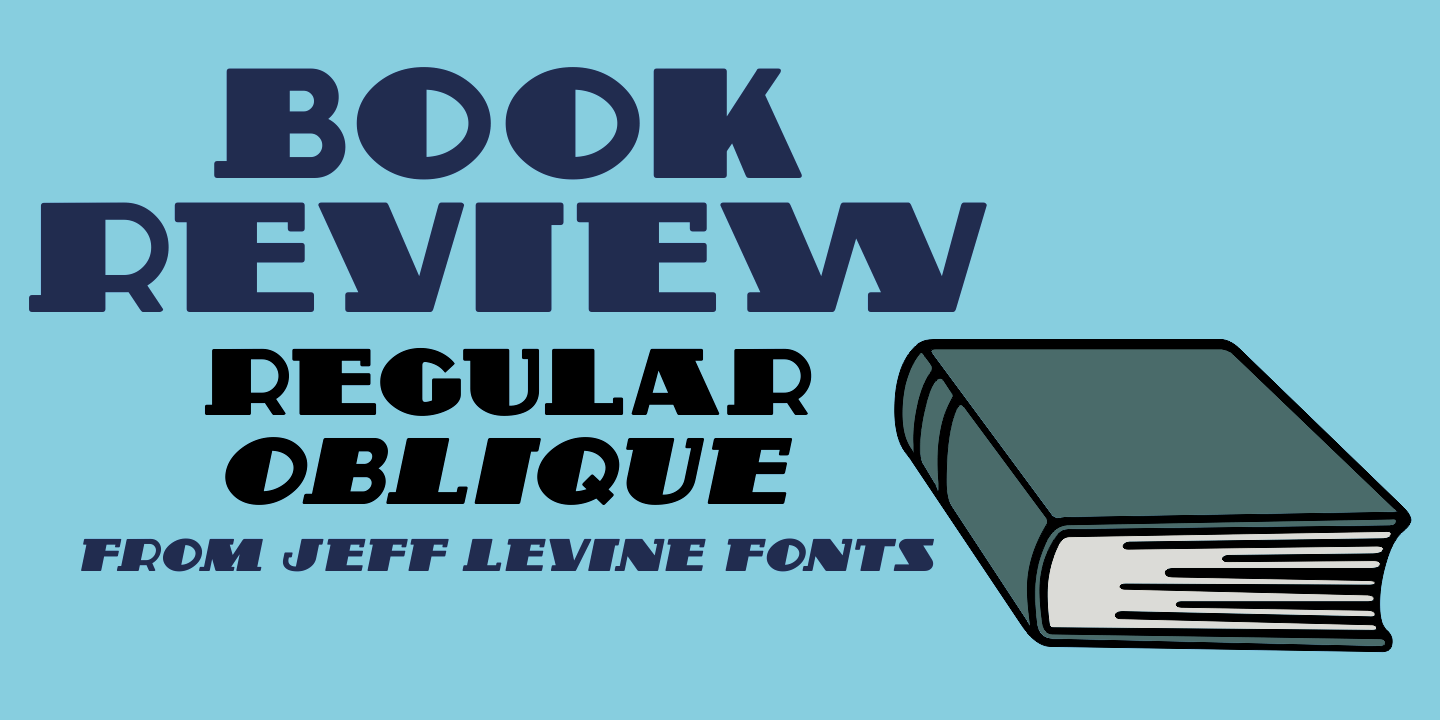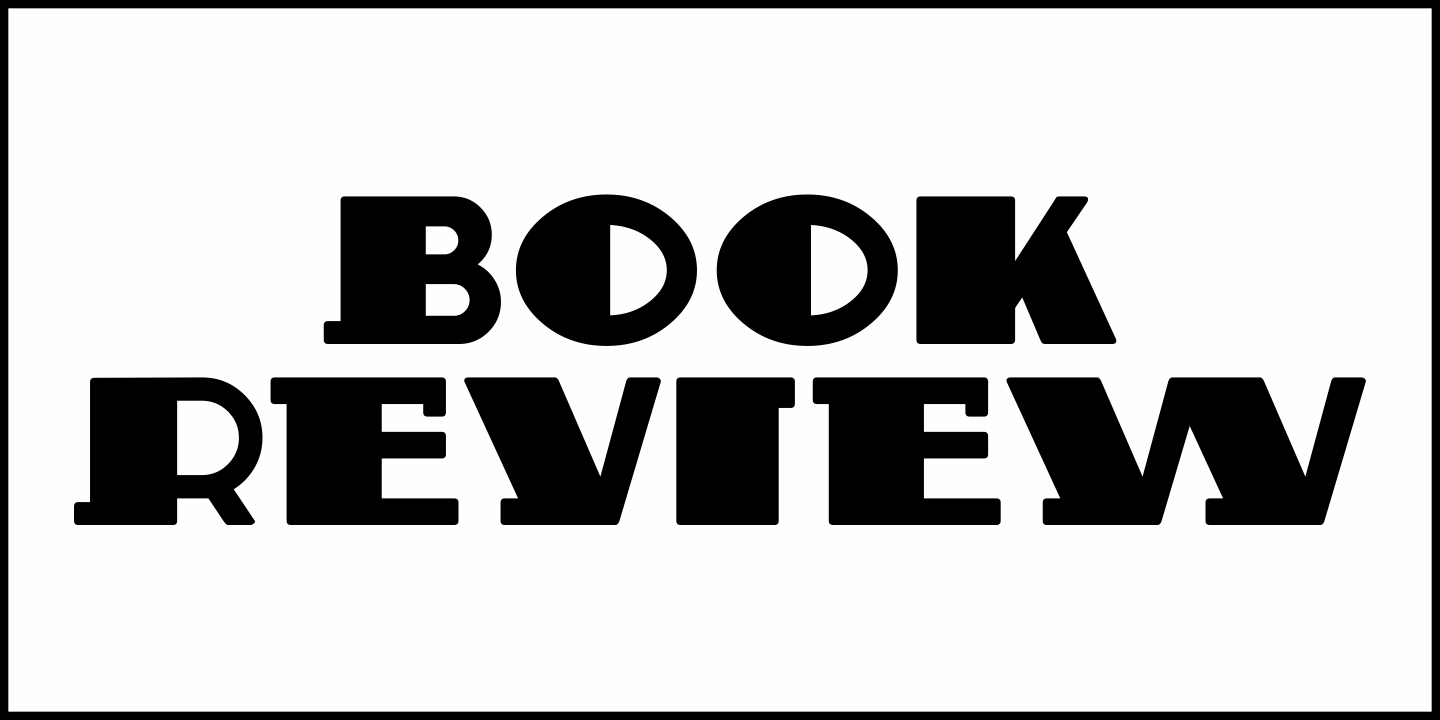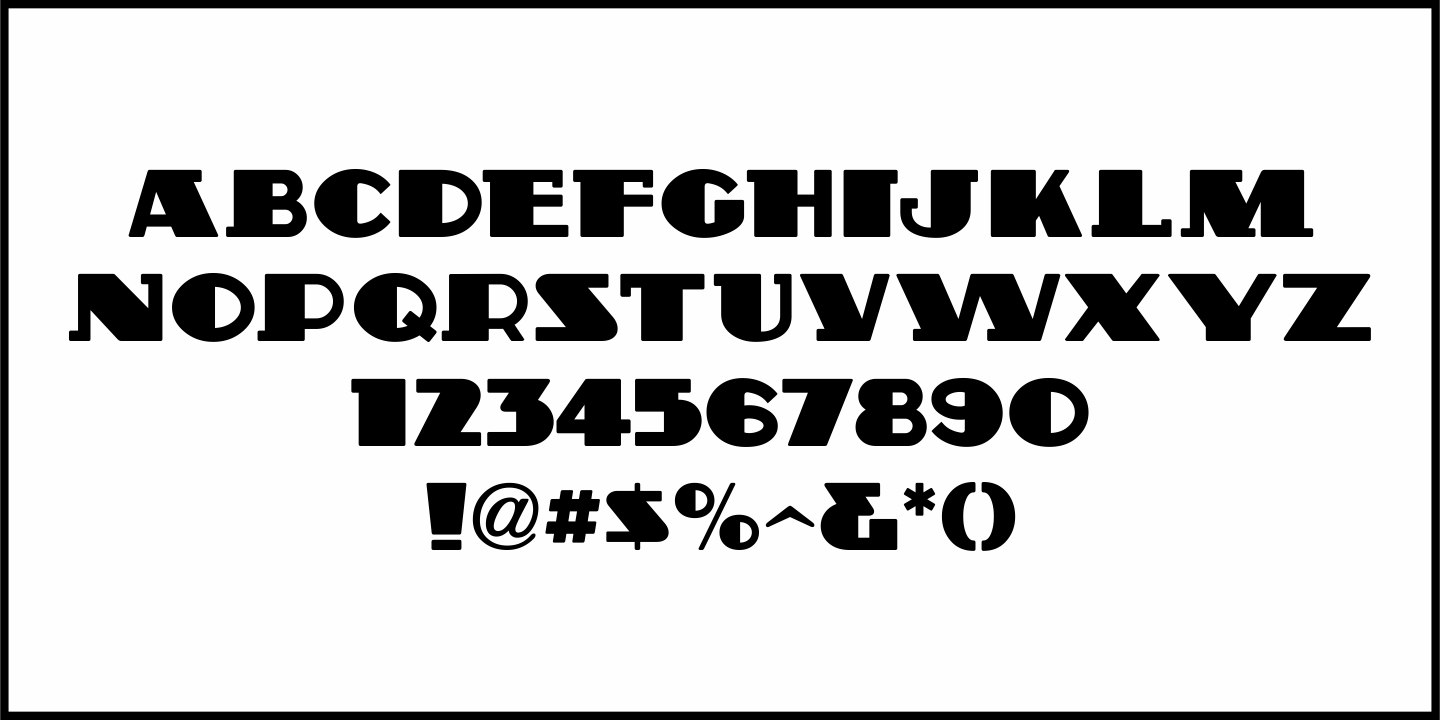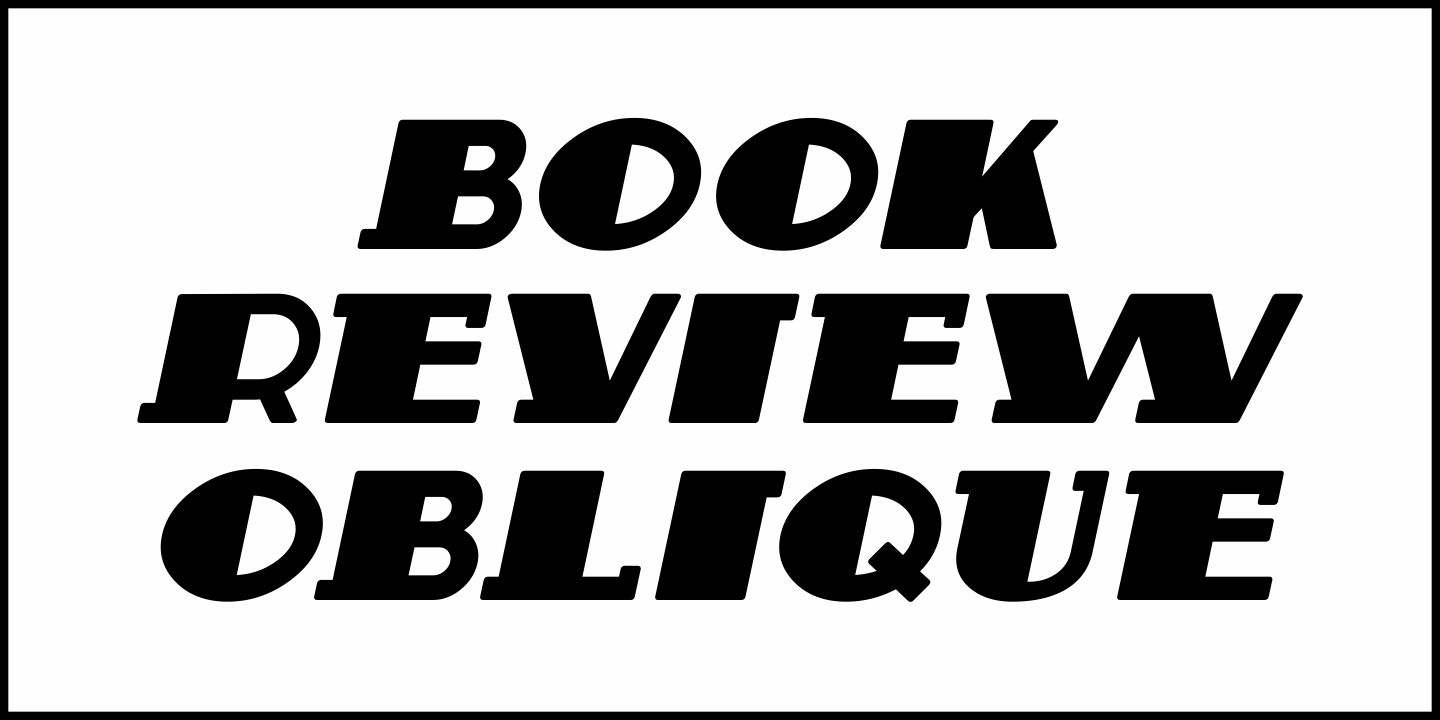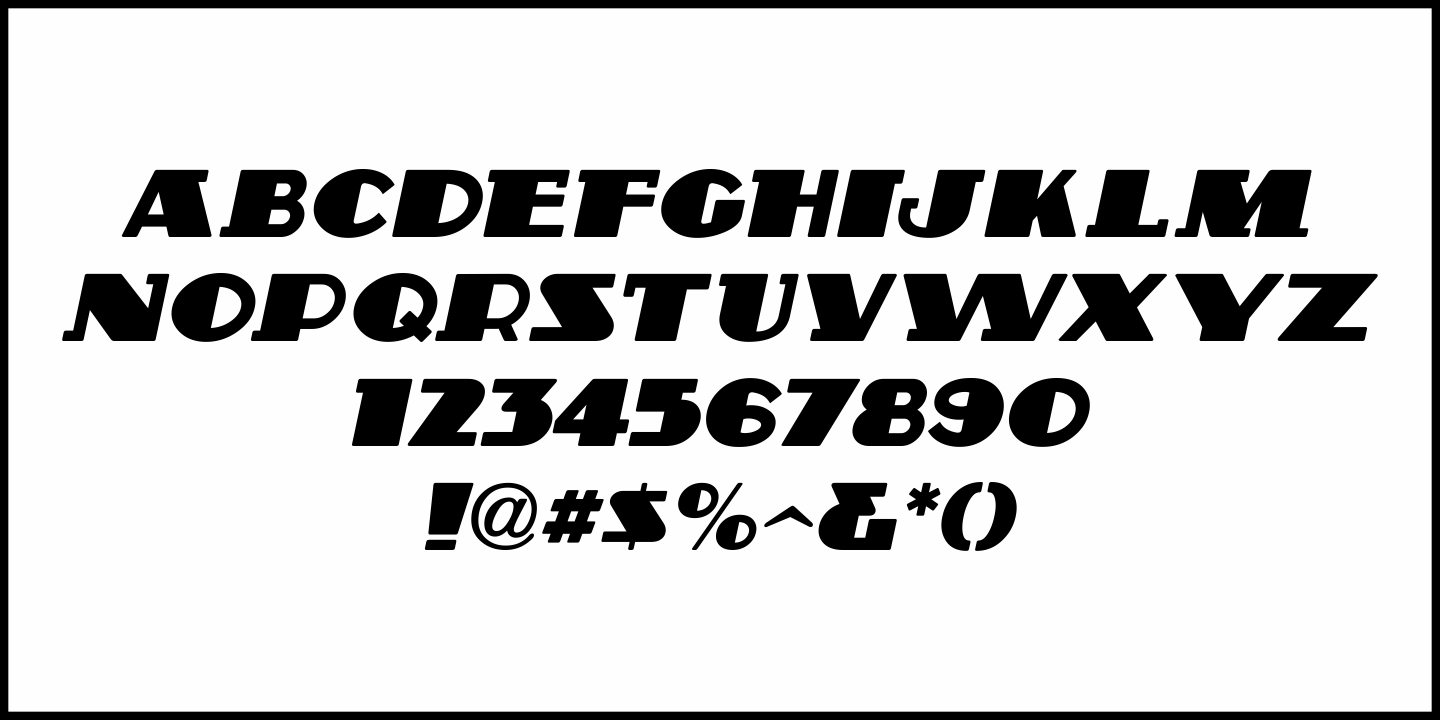
Book Review
On the 1930s dust jacket for "In Our Time" by Ernest Hemingway, the title is hand lettered in an unusual, stylized thick-and-thin Art Deco type style that combines both sans serif and semi-serif design elements.
This is now available as Book Review JNL in both regular and oblique versions.